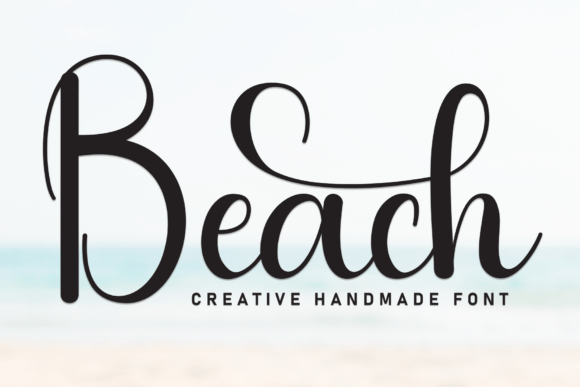
Discover the Allure of Beach Font: Where Elegance Meets Whimsy
Have you ever stumbled upon a design that transports you to a serene coastal paradise? For many creatives, the perfect font can evoke that same feeling – and Beach Font is the epitome of this sensation. A harmonious blend of charisma and elegance, this script font is a celebration of typography at its finest.
Beach Font is a versatile and captivating typeface that’s perfect for wedding invitations, emotional writings, or any design project that calls for a touch of fairy-tale magic. Its refined sophistication and inviting energy make it a valuable asset for designers looking to add a dash of whimsy to their work. With its PUA encoding, you can easily access all the glyphs and swashes, making it a breeze to work with.
Key Features of Beach Font
- Font Family: Beach Font is a unique, handwritten font designed to evoke the feeling of a beach vacation.
- Unique Characteristics: The font features a loose, cursive style with irregular letterforms and subtle variations in letter spacing, giving it a relaxed, beachy feel.
Beach Font Review
When I first laid eyes on Beach Font, I was immediately drawn to its carefree and playful vibe ✨. The font’s rounded edges and gentle curves evoke the feeling of a sunny day at the beach, making it perfect for projects that need a relaxed and casual tone.
One of the standout features of Beach Font is its versatility ✨. It works well for both digital and print projects, from social media graphics to packaging designs. The font is also highly legible, making it easy to read even at small sizes.
- Playful and carefree vibe ✨
- Highly legible, even at small sizes
- Works well for both digital and print projects
- Versatile and adaptable to various design styles
- ⚠️ Limited to a single font style, which may limit its use in more complex designs
- ⚠️ Not ideal for projects that require a more formal or professional tone
- ⚠️ May not be suitable for projects that require a lot of bold or dramatic typography
Overall, I think Beach Font is a great addition to any designer’s toolkit ✨. While it may have some limitations, its versatility and playful vibe make it a great choice for a wide range of projects.